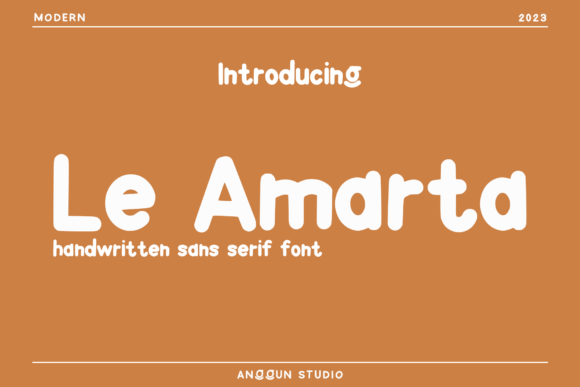
Meet Le Amarta, the epitome of sophistication and grace in the world of fonts. This classic sans serif font, meticulously crafted by Anggun.studio, is an artistic wonder that will transform your creative projects into masterpieces.
Le Amarta is more than just a font; it's an expression of elegance and charm. Its clean lines and timeless design make it the perfect choice for any project that demands a touch of class. Whether you're a seasoned designer or just starting your creative journey, Le Amarta will effortlessly enhance your work and make your ideas shine.
With Le Amarta, you unlock a world of possibilities. Its versatility knows no bounds, making it the ideal companion for a multitude of projects. From eye-catching logos and stunning website designs to captivating social media posts and elegant invitations, Le Amarta will elevate your creations to new heights.
Experience the joy of seamless creativity with Le Amarta. Its comprehensive character set, including uppercase and lowercase letters, numerals, and punctuation, ensures that you have everything you need to bring your ideas to life. Unleash your imagination and let Le Amarta take your designs to places you never thought possible.